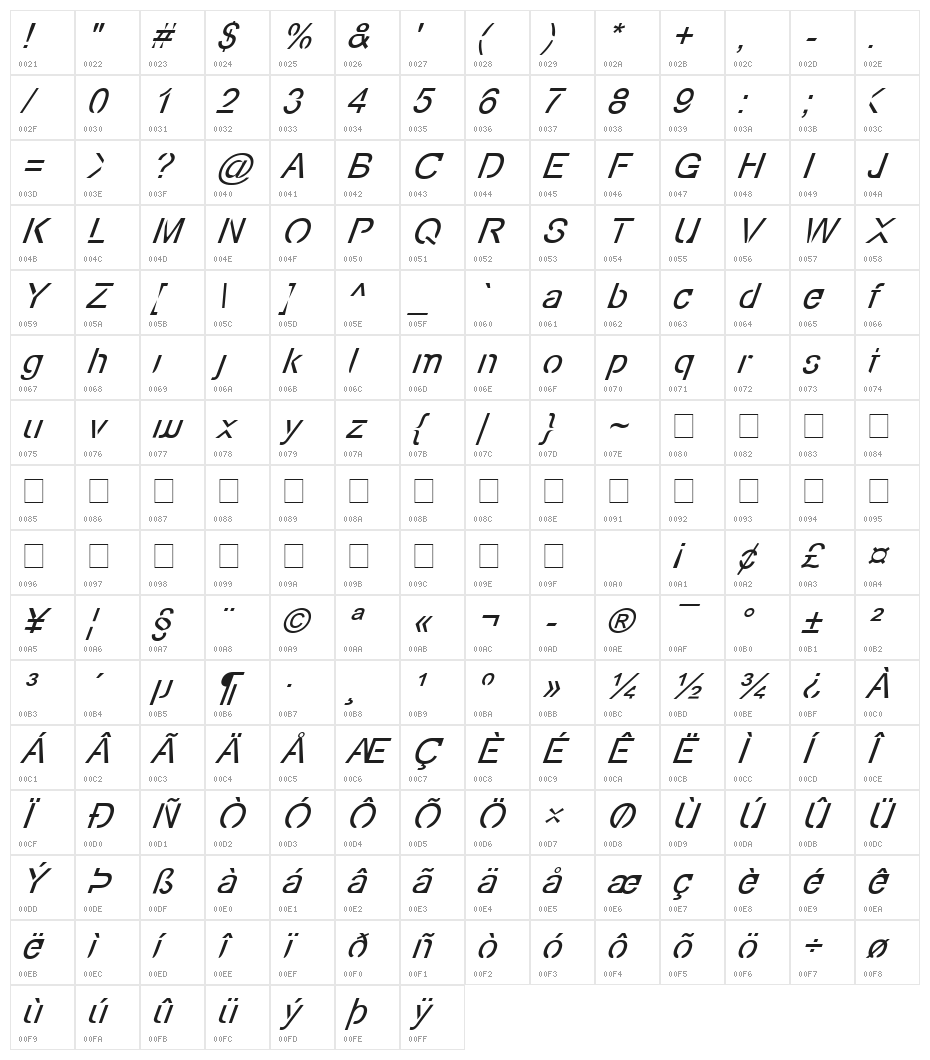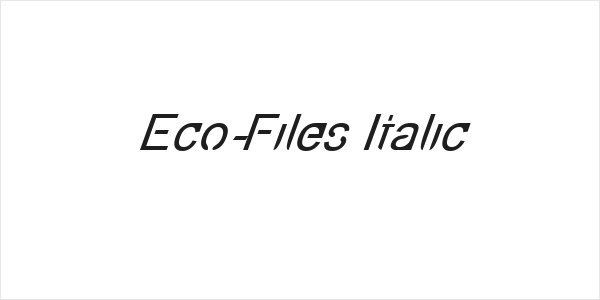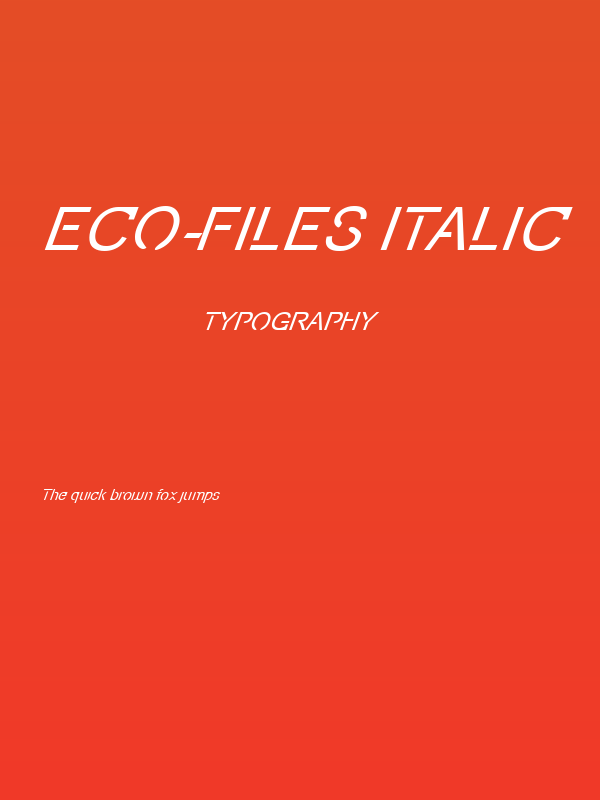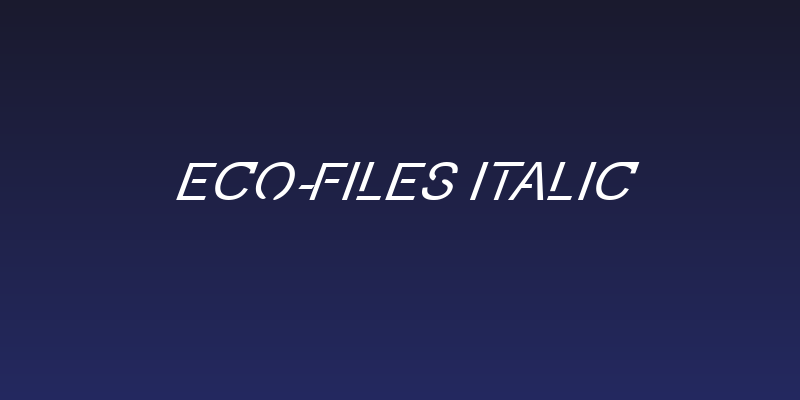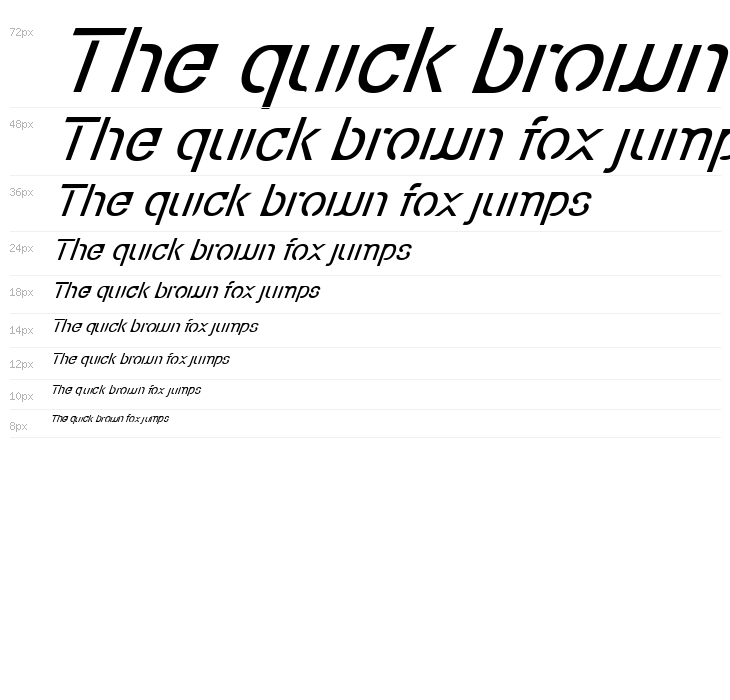
Eco-Files Italic Font
Eco-Files Italic Description
This font features a sleek, italicized design with a modern and dynamic feel. The characters are slightly slanted, giving a sense of motion and fluidity. The strokes are clean and consistent, with a medium contrast between thick and thin lines. The uppercase letters are bold and assertive, while the lowercase letters maintain a smooth and cohesive appearance. Numbers and special characters are designed to match the overall style, ensuring uniformity across all text. The font's contemporary aesthetic makes it suitable for a variety of applications.
Use CaseHeadlines, Logos, Advertisements
Proposed ProjectsIdeal for branding, advertising, and editorial design projects that require a modern and sleek appearance.